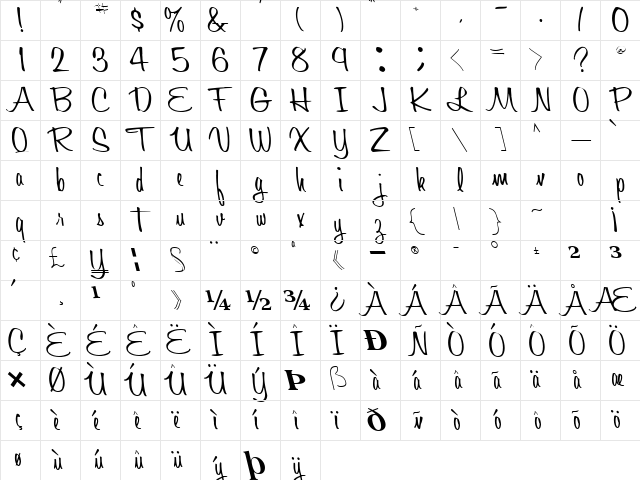
Quick Regular Free Font
Quick Regular
Quick Family
Quick Regular
Design Context for Quick
Quick is a composed and adaptable typeface that performs quietly and consistently across a wide range of design contexts.